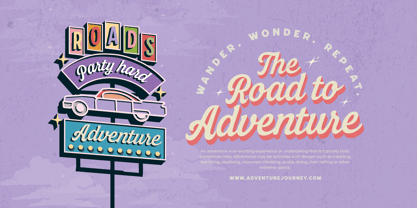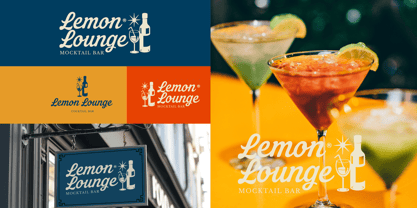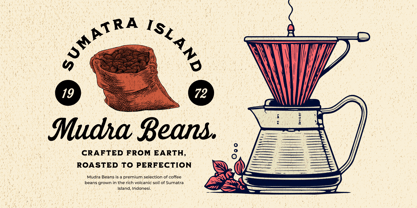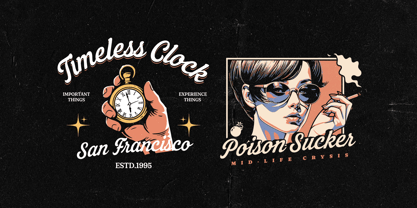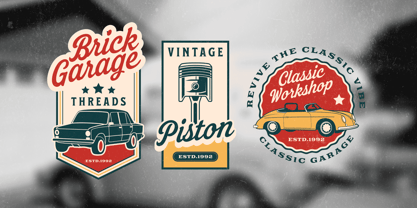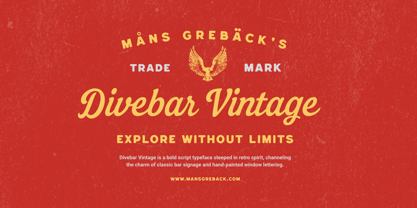
Divebar Vintage
Divebar Vintage is a bold script typeface steeped in retro spirit, channeling the charm of classic bar signage and hand-painted window lettering. Its curvy strokes and strong contrasts evoke a warm nostalgia, while maintaining a sense of lively confidence.
Designed with expressive swashes and upright rhythm, the font blends a sense of handcrafted personality with typographic precision. It carries the visual essence of neon-lit saloons, roadside diners, and vinyl-era record shops—full of character and charm without losing readability.
The font is built with advanced OpenType functionality and guaranteed top-notch quality, containing stylistic and contextual alternates, ligatures and more automatic and manual features; all to give you full control and customizability.
It has extensive lingual support, covering all Latin-based languages, from North Europa to South Africa, from America to South-East Asia. It contains all characters and symbols you'll ever need, including all punctuation and numbers.